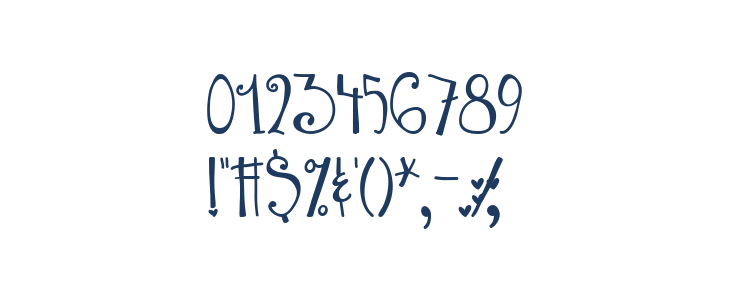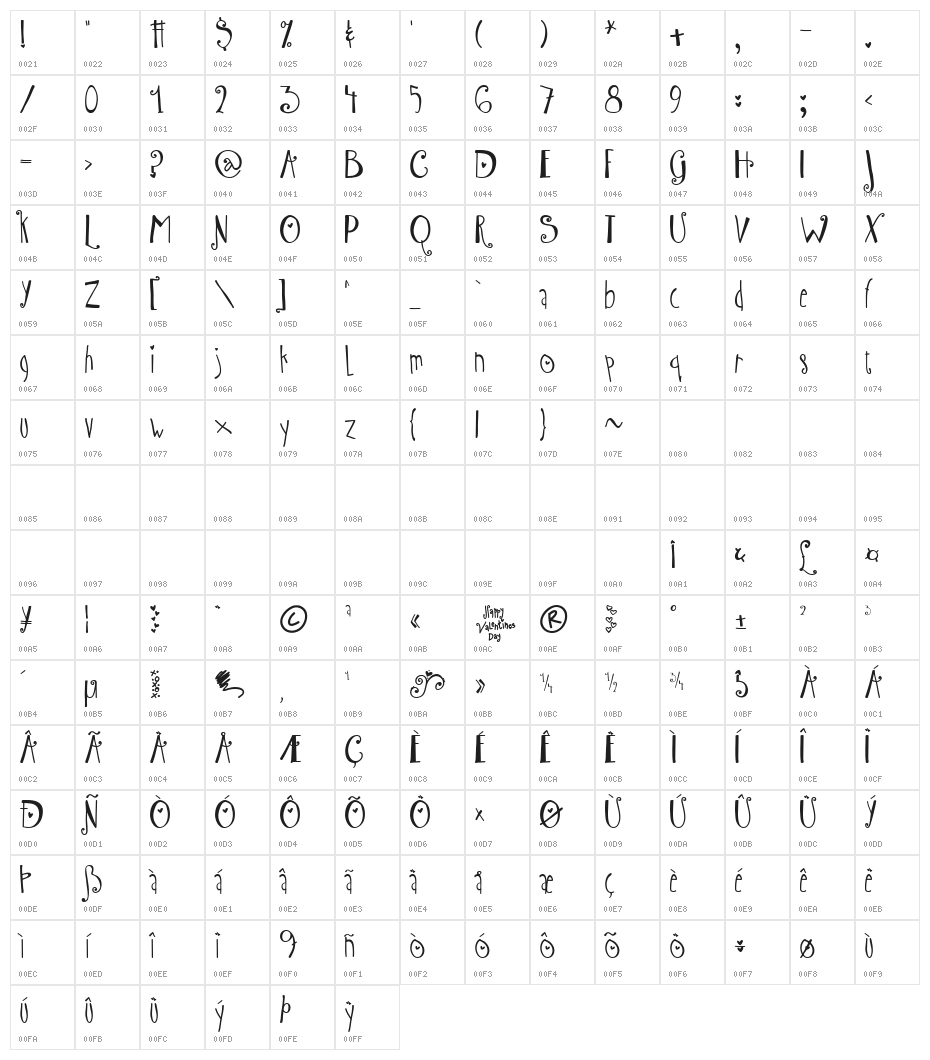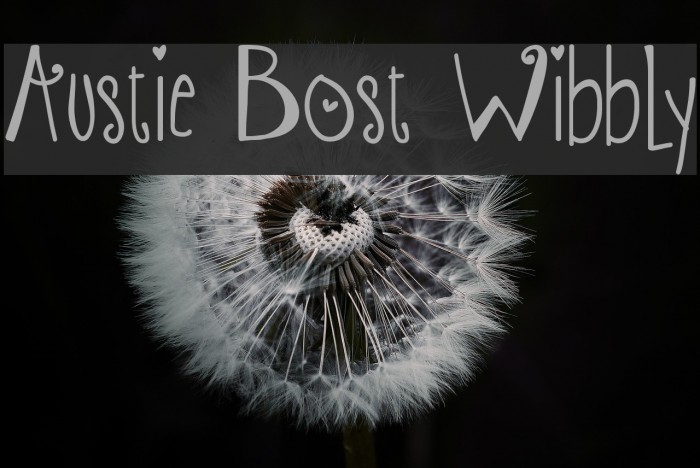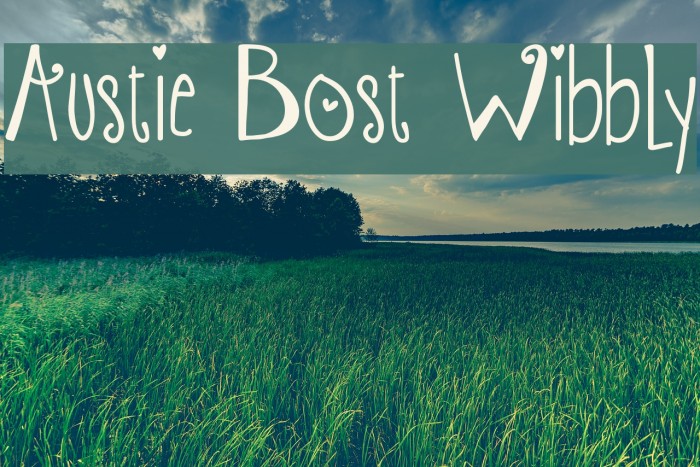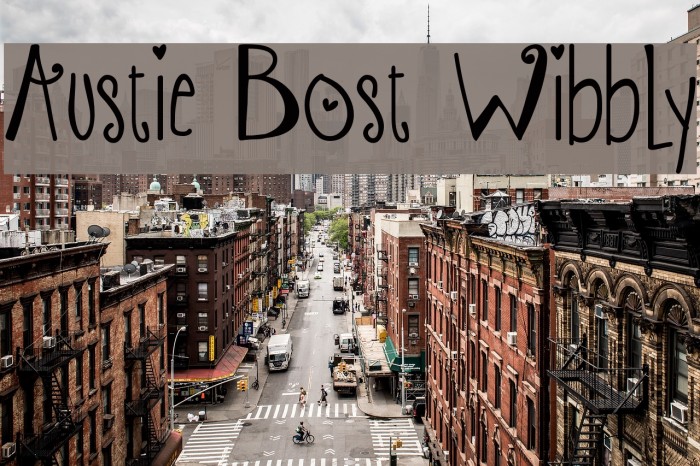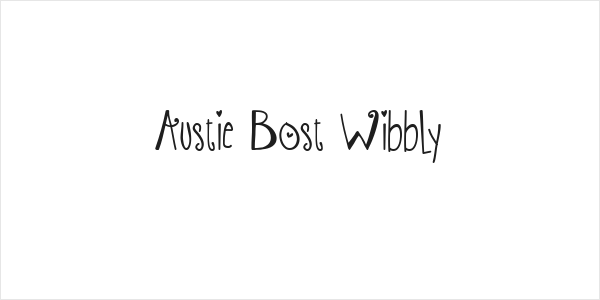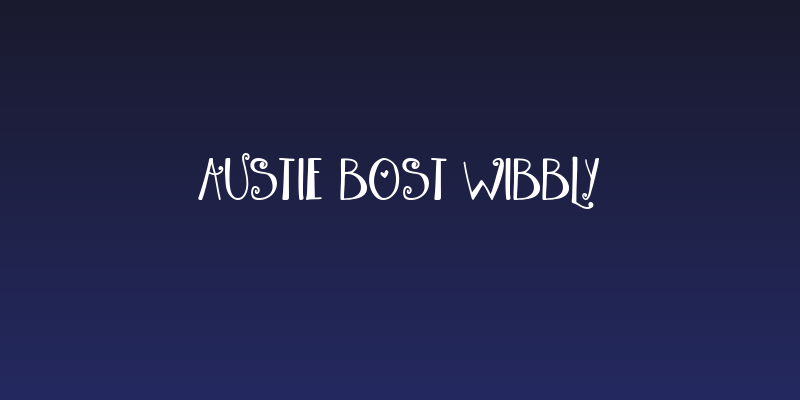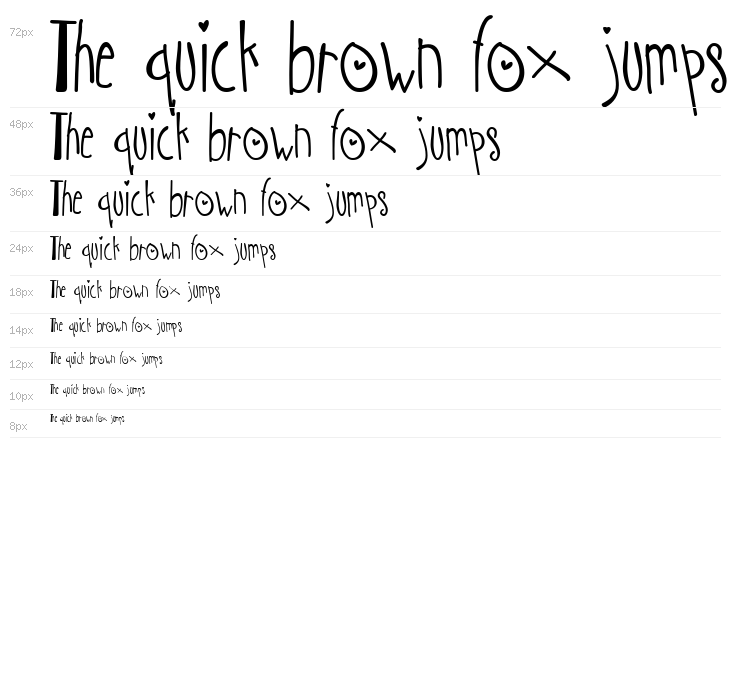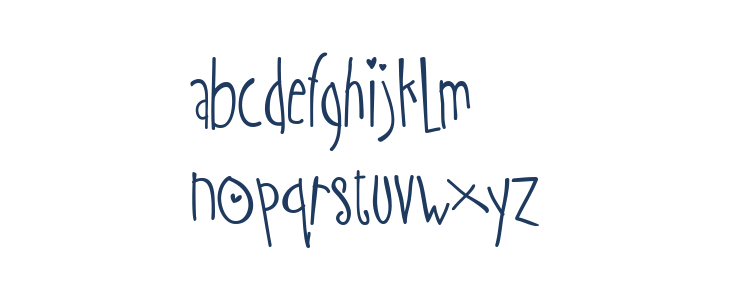
Austie Bost Wibbly Font
Austie Bost Wibbly Description
This whimsical and playful font features a unique, hand-drawn style with quirky, uneven lines and charming embellishments. Each character is distinct, with some letters incorporating heart motifs and swirls, adding a touch of whimsy and creativity. The font has a casual, informal feel, making it ideal for projects that require a fun and lighthearted touch. The uppercase and lowercase letters maintain a consistent style, while the numbers and special characters are equally imaginative, ensuring a cohesive look across all text. Its decorative nature makes it stand out, perfect for capturing attention in creative designs.
| Overall Style | Playful, Whimsical, Creative |
| Proposed Projects | Ideal for children's books, greeting cards, playful branding, and creative invitations. |